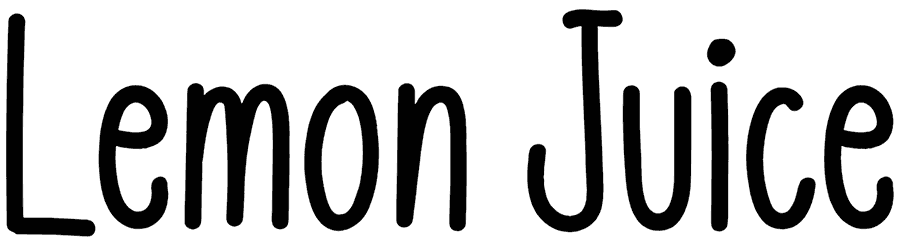
Lemon Juice Font
Lemon Juice font is our choice when we want something personal, with its simple and easy-to-read lettering designs. Its style benefits from a single line to designing elegant letters and adds a perfect vintage and casual touch to texts.
The handwritten font is mostly used for presentations and homemade branding, poster prints, and social media posts. Neat and elegant strokes come together in a package that will help you with more than one aim.